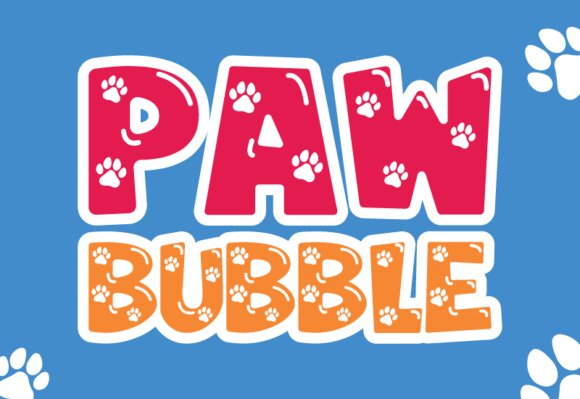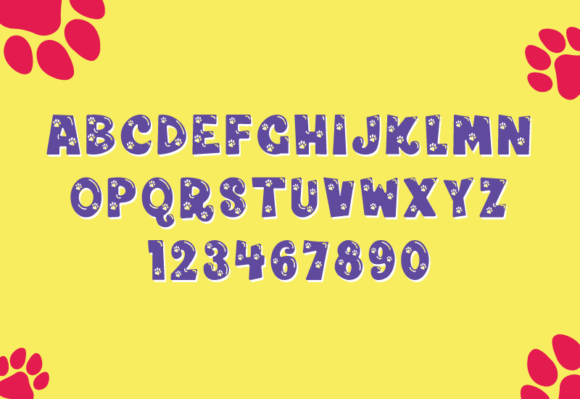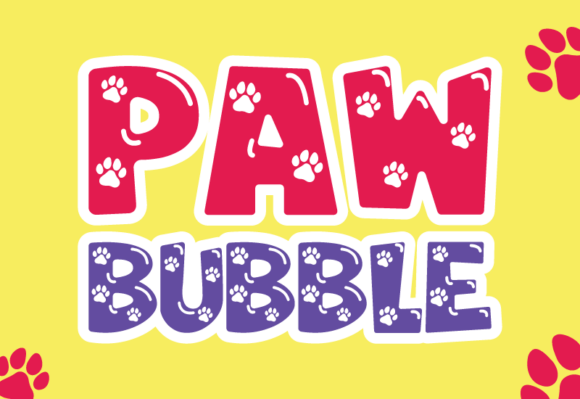
Introduction to Paw Bubble Font
Introducing Paw Bubble Font – a fun and adorable bubble-style typeface featuring cute paw graphics.
Perfect for pet-themed designs, cat and dog lovers, and kids’ creative projects This playful font adds a soft, bubbly charm to your logos, posters, invitations, T-shirts, and social media graphics.
Key Features of Paw Bubble Font
Why Choose Paw Bubble Font?